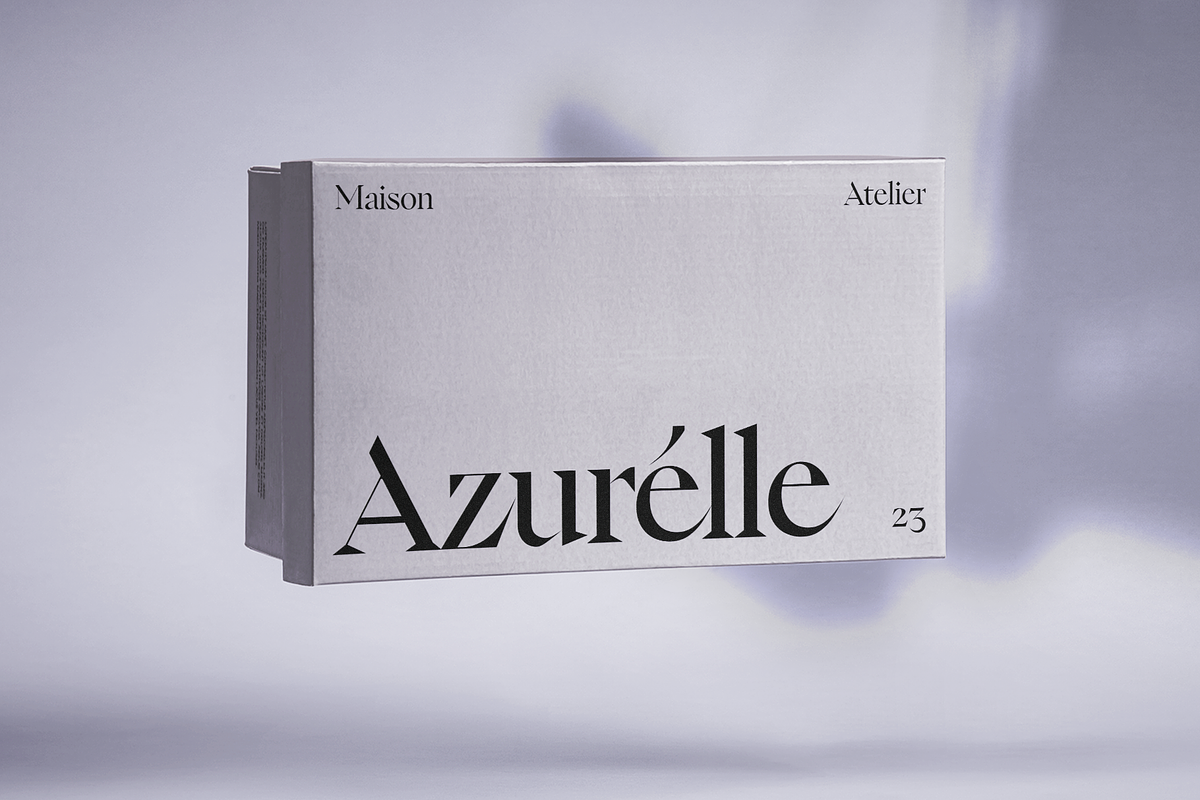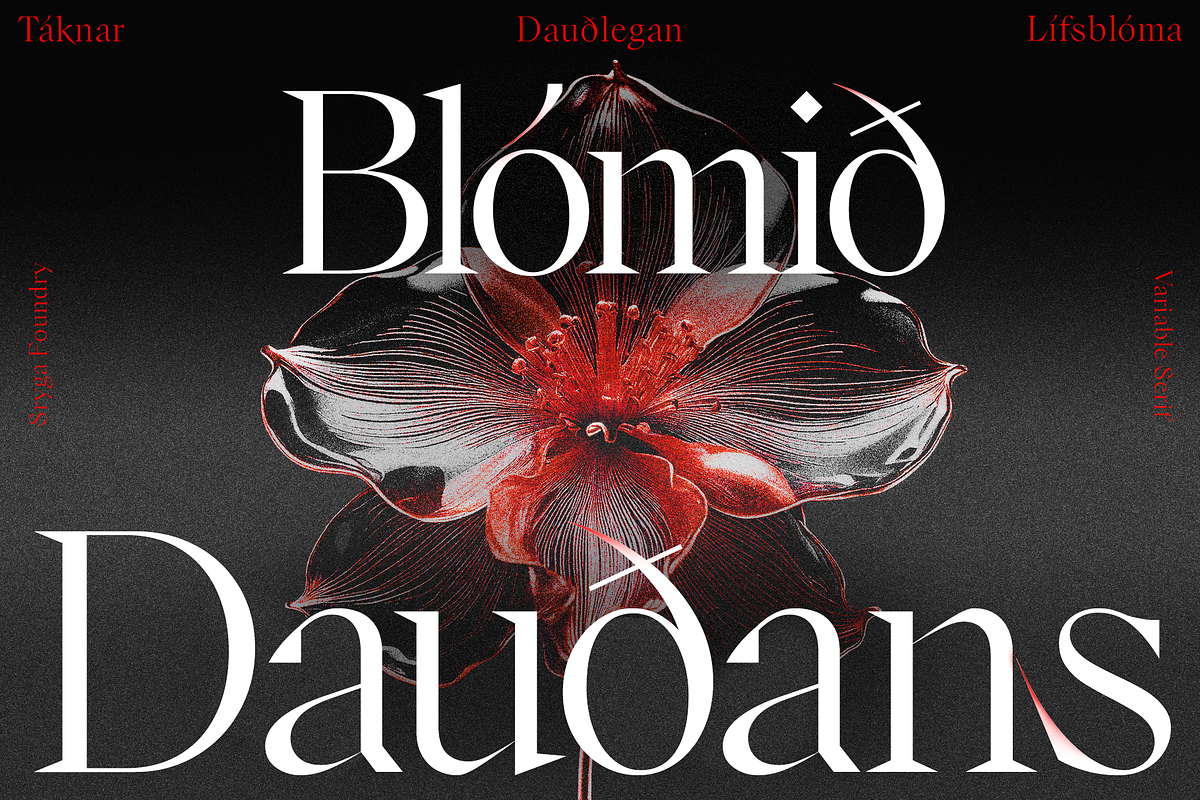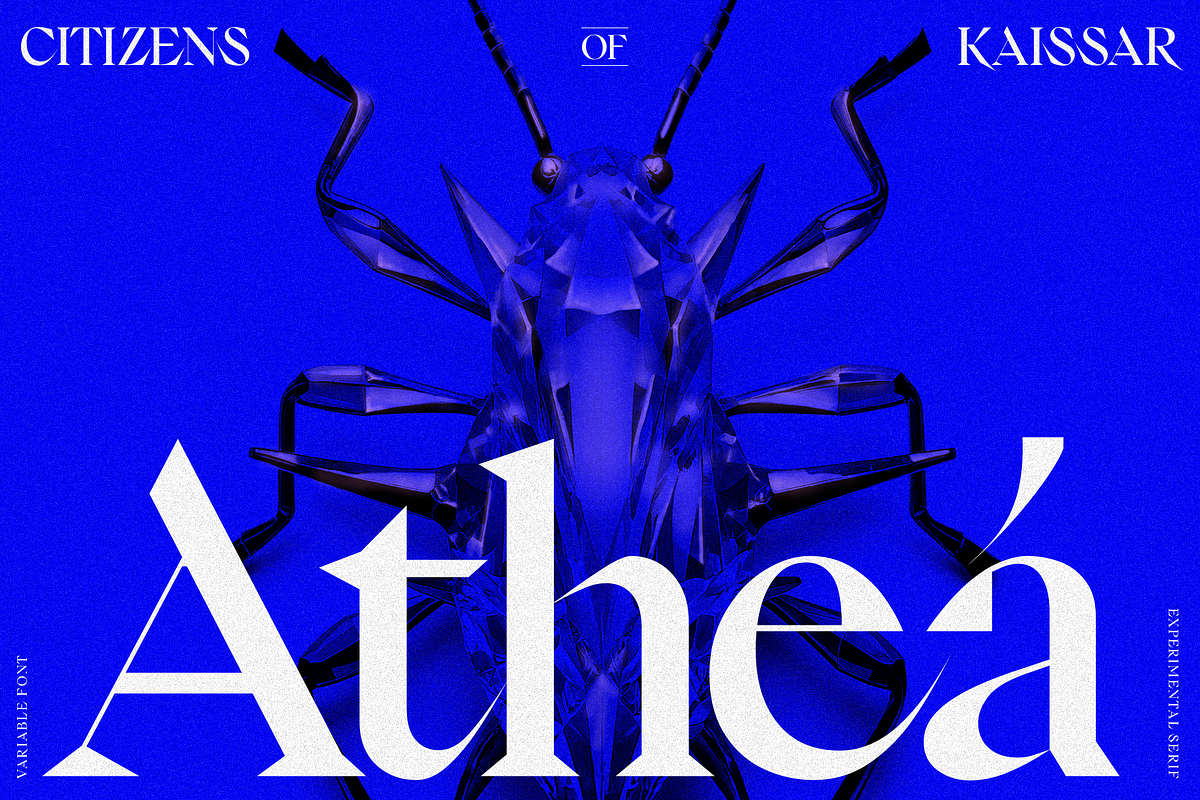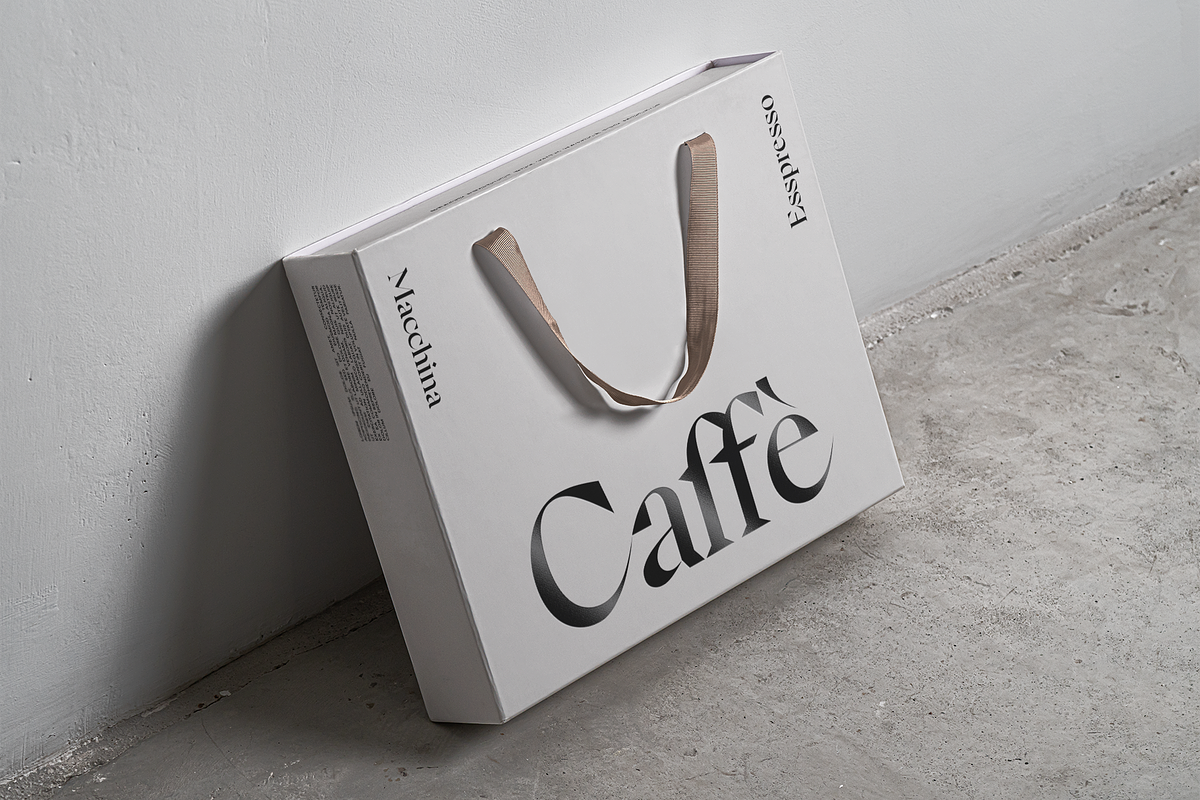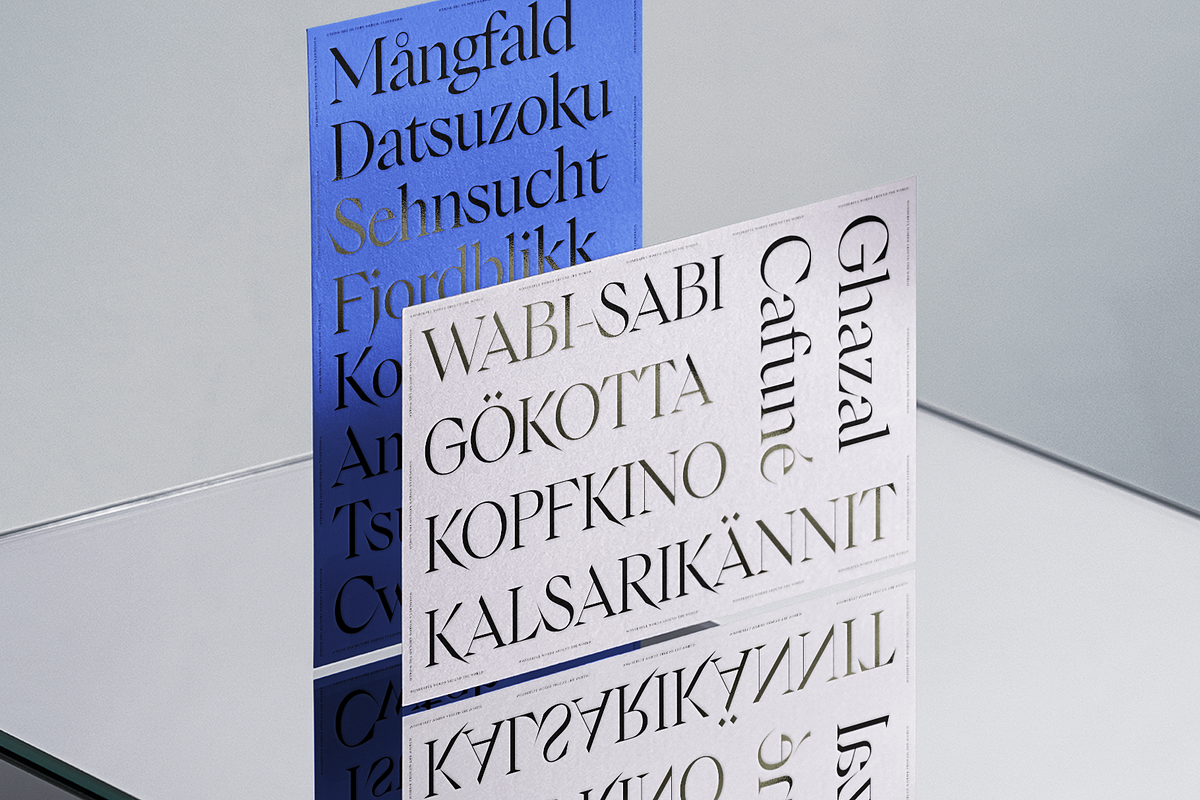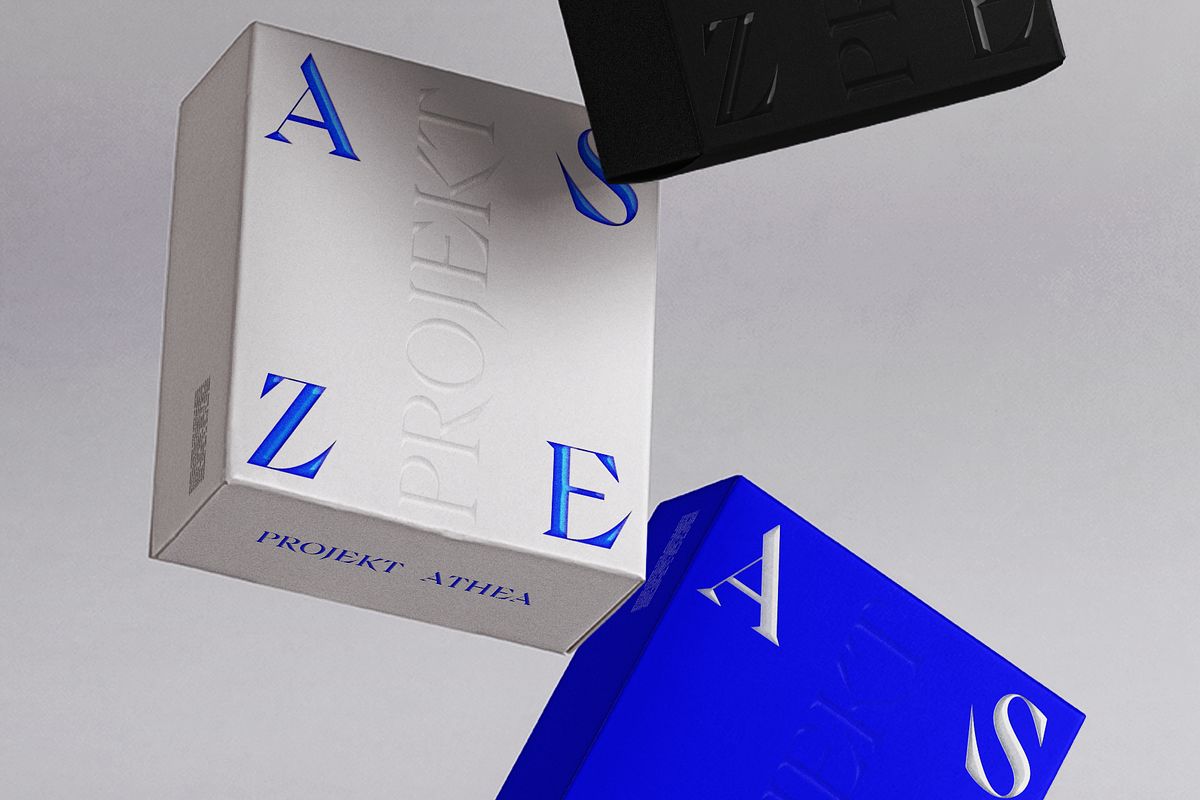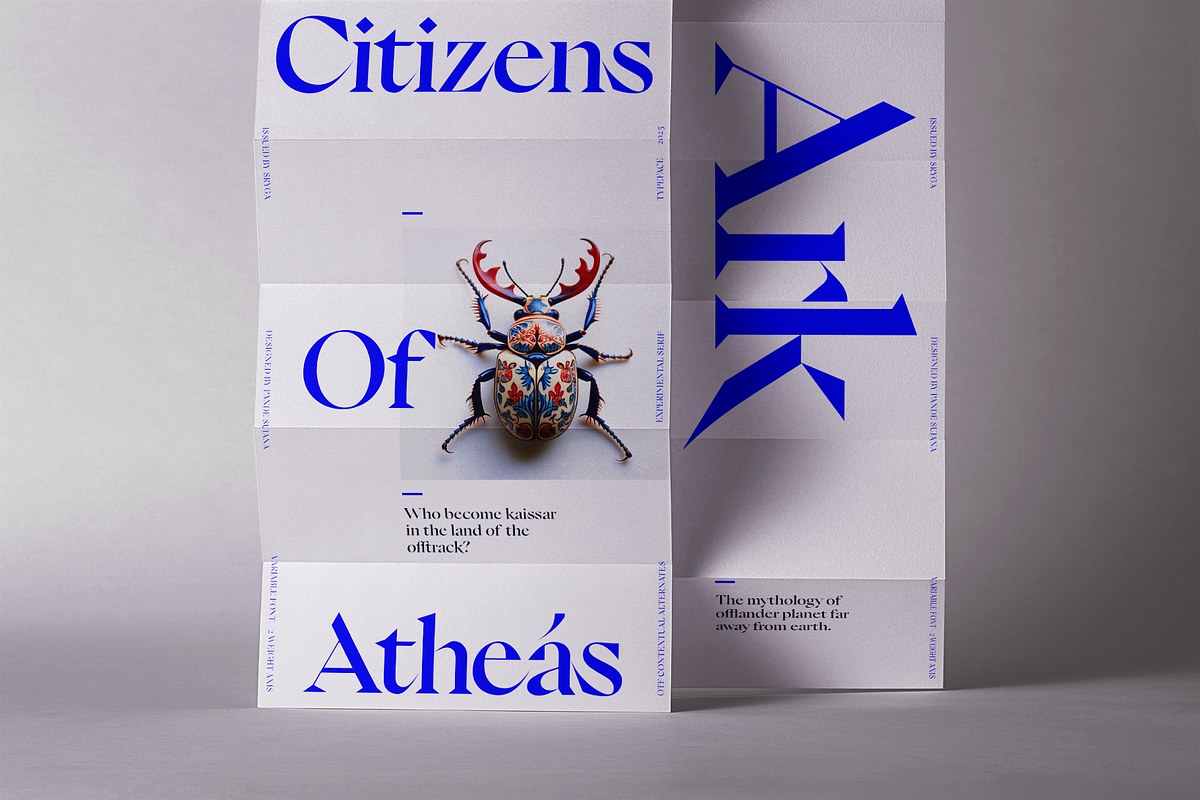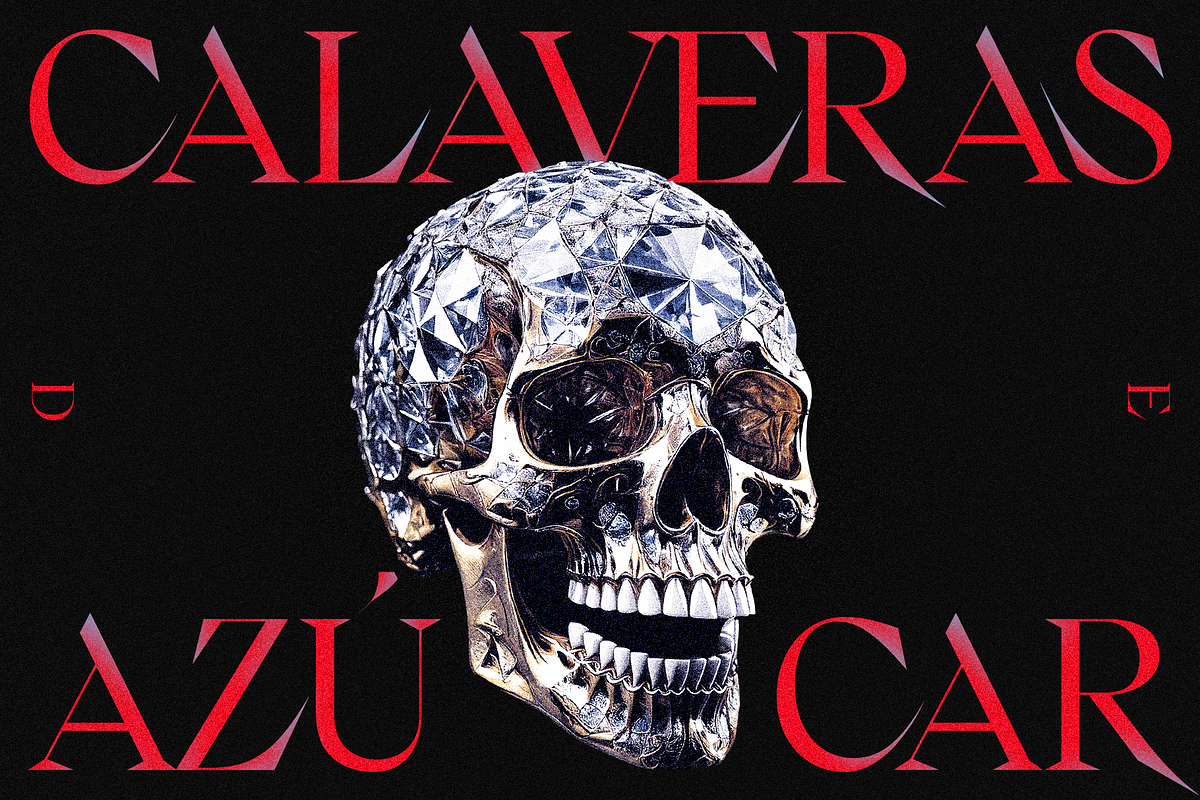
Athea — Variable Display Serif
Athea is a modern reinvention of the classic serif, blending tradition with a bold, contemporary edge. Its sharp, geometric construction respects serif heritage while pushing boundaries with needle-like pointy edges in lowercase glyphs like e, c, s, t, and z, exuding an almost brutalist sophistication. In uppercase, Athea takes on a striking, metallic rigidity, where its angular precision and sharp features create a commanding, futuristic presence. It’s a typeface where elegance meets audacity, perfect for those who dare to redefine tradition.